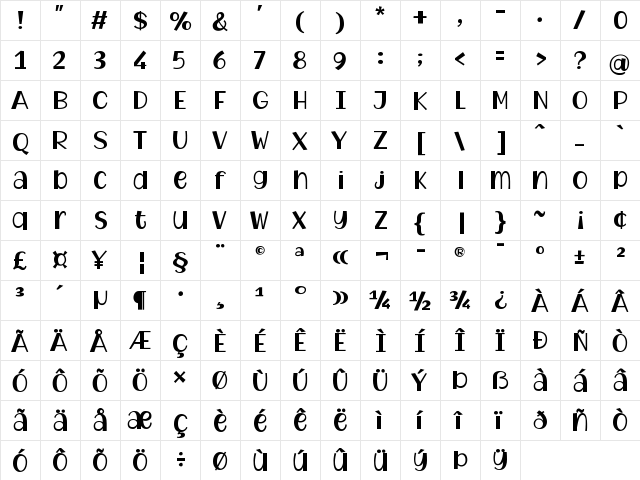
Watermelon Family SemiBold Font Preview
Watermelon Family SemiBold
Watermelon Family SemiBold Font Details
| Style | SemiBold |
| Foundry | Darwin Huayan Harahap |
| Designer | Darwinoo |
Design Context for Watermelon Family Typeface
Watermelon Family is a composed and adaptable typeface that performs quietly and consistently across a wide range of design contexts. The heavy weight commands attention and anchors typographic hierarchies.